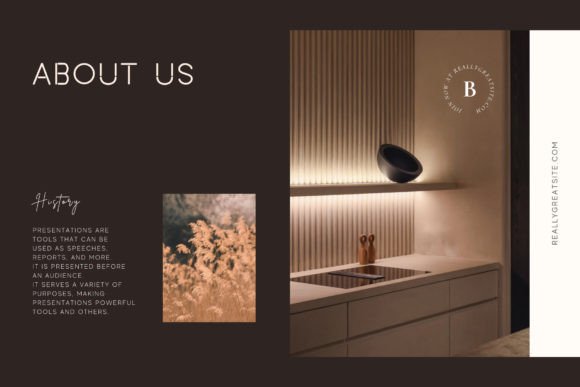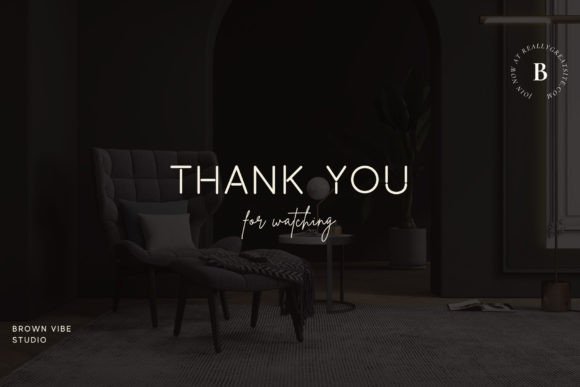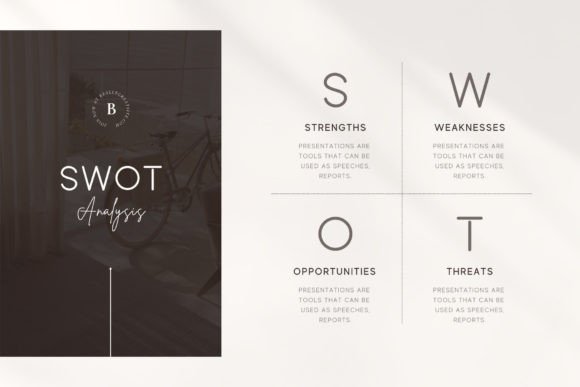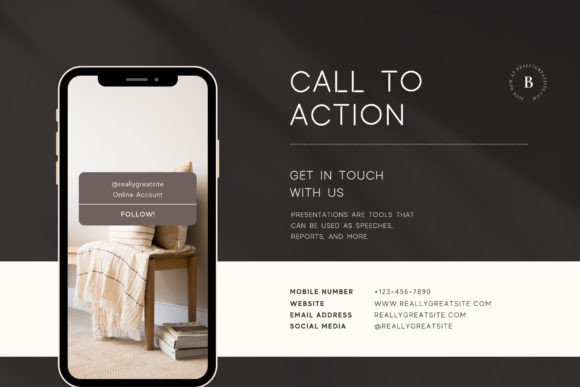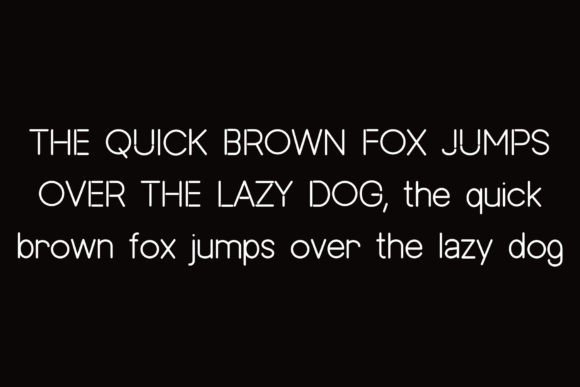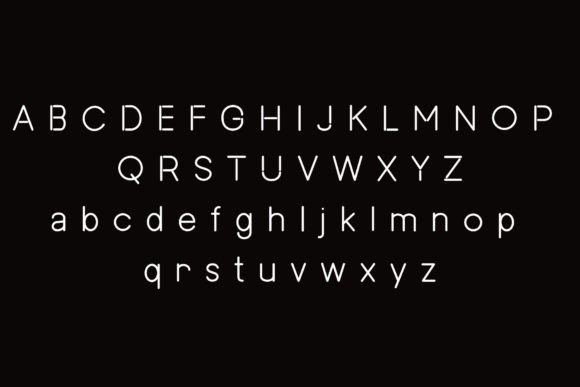
Introduction to Modern Sky Font
Have you ever been in the middle of a creative project, and the perfect font just seems to be missing? For designers, finding that elusive perfect font can make all the difference between a great design and a truly unforgettable one. That’s exactly what happened to me when I stumbled upon the Modern Sky Font – a cute, handwritten font that’s as versatile as it is charming.
| 👤 Author | surachet2548 |
With its playful sans-serif style and transparent background, the Modern Sky Font is a game-changer for any design project. Whether you’re working on invitations, cards, logos, or just want to add a personal touch to your social media graphics, this font is sure to impress. As a valuable design resource, the Modern Sky Font offers high-quality typography that’s free to download, making it an absolute must-have for any creative project.
Key Features of Modern Sky Font
- High-quality design: Modern Sky Font is a premium font designed to meet the needs of creative projects, offering a unique and modern aesthetic.
- Transparent background: This font features a transparent background, allowing for seamless integration with any design resource.
- High-resolution glyphs: The font is designed with high-resolution glyphs, making it suitable for use in large-scale creative projects and print materials.
- Perfect for creative projects: Modern Sky Font is an excellent choice for designers working on creative projects, including branding, advertising, and editorial design.
Honest Review: Modern Sky Font
I recently came across the Modern Sky Font and was excited to give it a try for a creative project. As a designer, I’m always on the lookout for high-quality design resources to elevate my work.
- High-quality design: The Modern Sky Font has a sleek, modern aesthetic that’s perfect for a wide range of creative projects.
- Transparent background: The font’s transparent background allows for seamless integration with other design elements.
- ⚠️ Limited character set: The font is a bit limited in terms of character options, which can be a drawback for projects that require a wide range of characters.
- ⚠️ Not suitable for all platforms: The font may not render correctly on all platforms, which can be a concern for designers who need to ensure cross-platform compatibility.
Overall, I was impressed with the Modern Sky Font and would definitely consider using it for future creative projects. While it has some limitations, its high-quality design and easy customization make it a great addition to any design resource collection.
Modern Sky Font is a high-quality design resource ideal for creative projects. It features a transparent background, making it perfect for overlaying on images or videos. With a free download available, you can access this versatile font and elevate your designs.
Tips for Getting the Most Out of Modern Sky Font
To maximize the impact of Modern Sky Font, use it in conjunction with high-quality images and videos. Experiment with different font sizes, colors, and styles to create visually appealing designs.
Modern Sky Font is commonly used in creative projects, such as graphic design, social media graphics, and presentations. Its transparent background and high-quality design make it an ideal choice for a variety of applications.
Yes, the Modern Sky Font features a transparent background, making it ideal for use on various design elements, such as icons, graphics, and other creative project components. This allows for a clean and modern look in your designs.